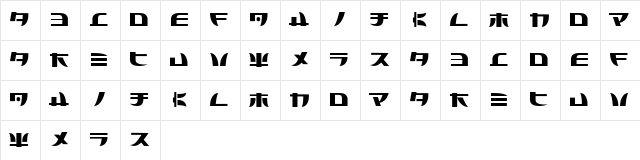
Tecnojap Regular Free Font
Tecnojap Regular
Design Context for Tecnojap
Tecnojap is a composed and adaptable typeface that performs quietly and consistently across a wide range of design contexts.